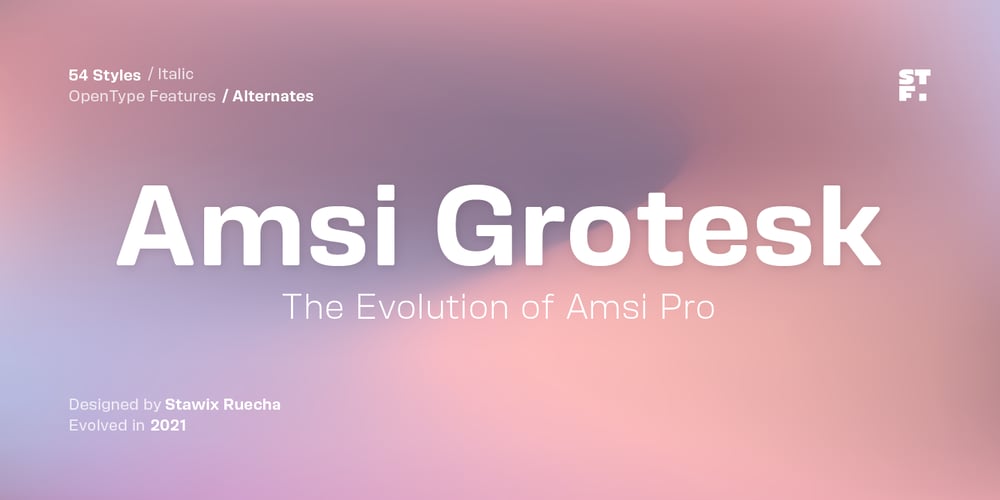
Amsi Grotesk
Amsi Grotesk font
Amsi Grotesk Font Family was designed by Stawix Ruecha and published by Stawix. Amsi Grotesk contains 54 styles and family package options. In 2015, Amsi Pro was released with the intention of easy usage and headings. After more than 5 years, Amsi has developed itself into the direction of Grotesk, which can be use comfortably as Graphic, both text and headlines, keeping its friendliness trait with Semi-Rounded and Humanist approach looking pleasing to the eye, succeeding the DNA of Amsi. The font has been set to equipped with 3 widths (Normal / Narrow / Condensed) for flexibilities in various demands. We are truly proud to present Amsi Grotesk.